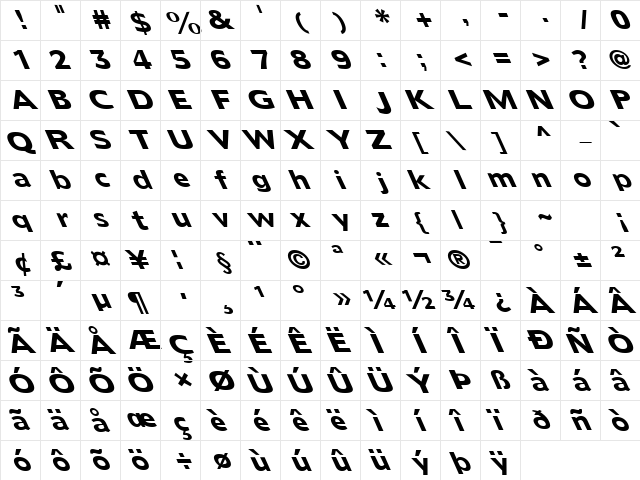
FZ BASIC 55 LEFTY Normal
Design Context for FZ BASIC 55 LEFTY Typeface
FZ BASIC 55 LEFTY offers clean, dependable letterforms without strong stylistic allegiance, making it a practical choice for designers who need flexibility.
Pro Tip: Use FZ BASIC 55 LEFTY in both headline and body roles to test its range before committing to a single application.